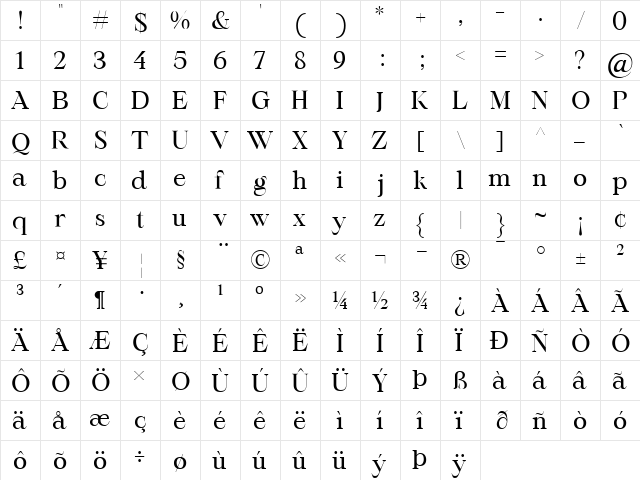
Maharlika Regular
| Designer | Ismael Dayag |
Design Context for Maharlika Typeface
Maharlika takes a measured approach to typography — its balanced proportions and neutral character make it a reliable workhorse for both digital and print work.